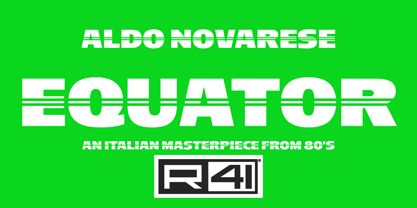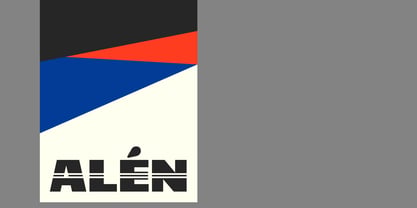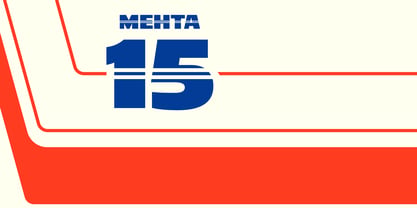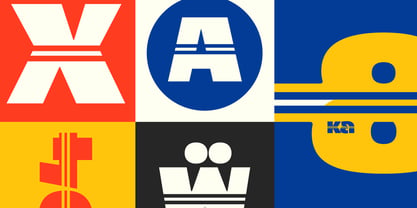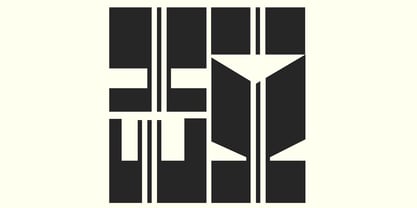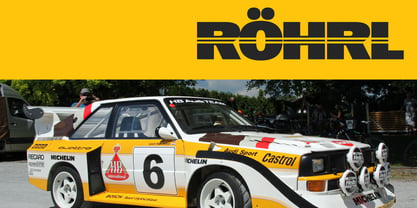
R41 Equator
The typeface commissioned from Aldo Novarese in 1977 appears remarkably linear thanks to the presence of a thin line that crosses the letter, facilitating reading and making it more fluid. This optical effect makes it particularly suitable for logos, titles, and compositions with a strong visual impact. The reader's eye is inevitably drawn to the median line that crosses the letter, creating a similarity with the Earth’s equator.
About Reber R41
Reber R41 is an Italian company founded in Spresiano, Treviso, in 1960 by Renato Bernardi, inventor of his own method of dry transfer type, and still run by his family. Since 1969, R41 has produced dry-transfer adaptations of iconic designs from Nebiolo Type Foundry, including its most experimental creations designed for the booming Italian advertising industry. Designer Aldo Novarese, who retired from Nebiolo in the early ’70s, worked with Reber R41 for years afterward designing brands, catalogues, advertising and of course…typefaces. Now Reber R41 provides new digitizations of the work of Novarese and Nebiolo of Turin, brought together in a unique collection that preserves the best of historic Italian typography of the twentieth century.